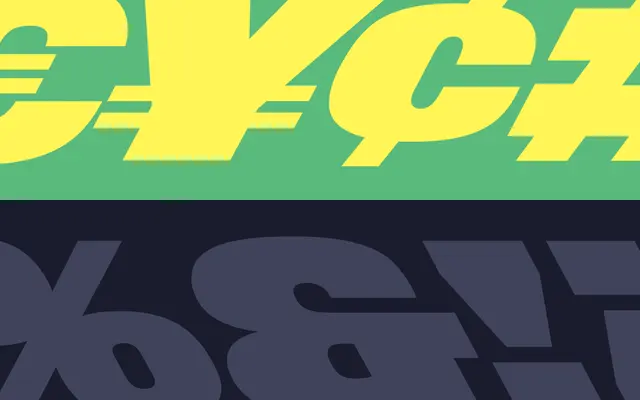
Nitro & Turbo
Hoefler & Co · Jonathan Hoefler · 2011
A sloped display pair drawn for the New York Jets identity, pairing an aggressive 28 degree italic with a matching backslant.
A display family by Jonathan Hoefler, originally drawn for Pentagram's identity work on the New York Jets. Nitro is an aggressively sloped italic of massive weight, rooted in the heavy slanting lettering the team had used through its history. Turbo is the backslanted counterpart, a contra-italic that lets the family read correctly on both sides of a moving vehicle. Both share a 28 degree slope, so the family suits action graphics, sports identity, transport liveries and any setting where typography needs to imply force and motion.
H&Co frame Nitro and Turbo as a sloped display pair built from a single extreme italic. Nitro is an aggressively sloped italic at heavy weight; Turbo is its backslanted counterpart. Both share a 28 degree slope, more than double the angle of most italics.